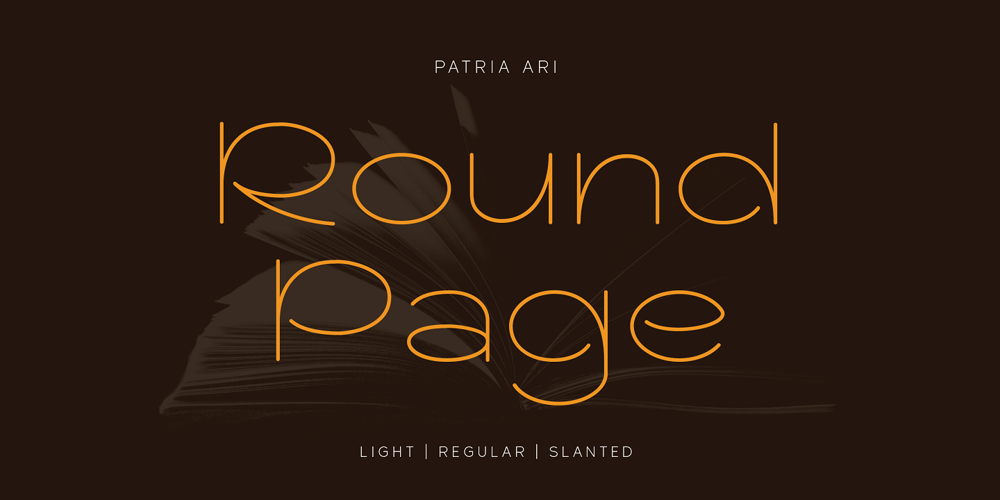
Round Page Font Family was designed by Patria Ari Wijonarko and published by Patria Ari. Round Page contains 4 styles and family package options. Round Page is an elegant round typeface with 2 weight and 2 styles. This font is a combination between modern, beauty and simplicity. With this typeface, you can use it for branding, merchandise, magazine cover, headline, logo, powerpoint templates design, and many more.What’s included? Uppercase Characters Lowercase Characters Multilingual support. Hope you enjoy the products.